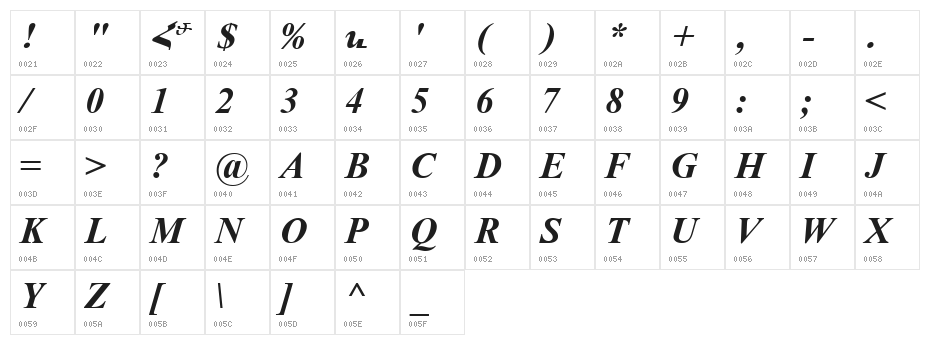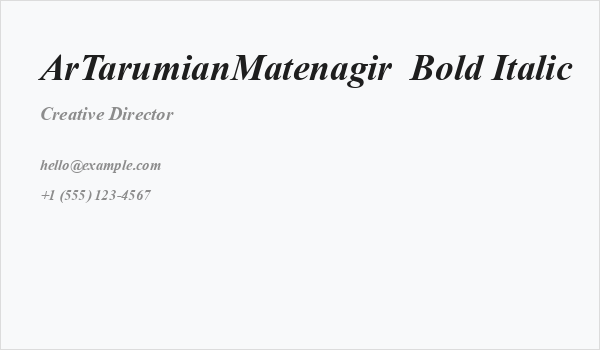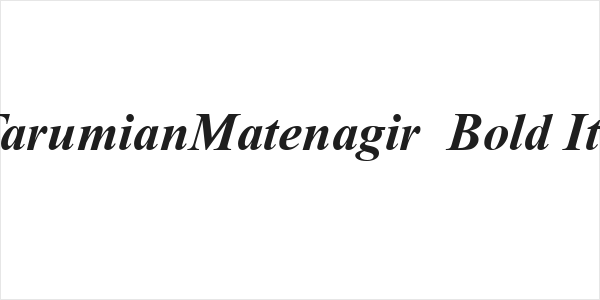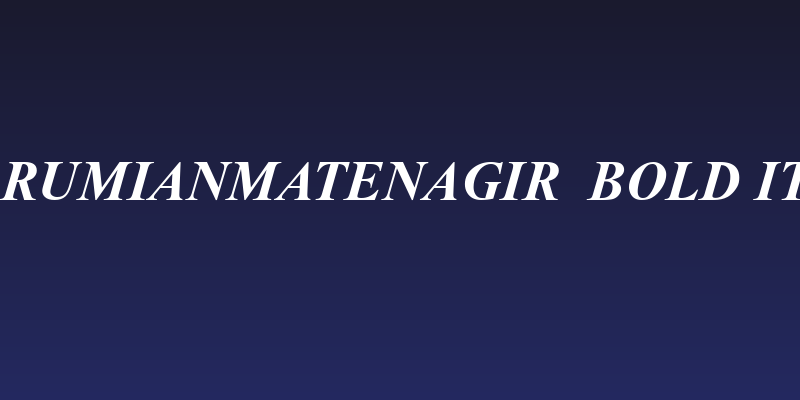
ArTarumianMatenagir Bold Italic Font
ArTarumianMatenagir Bold Italic Description
This font exhibits a bold and italicized style, characterized by its elegant and flowing serifs. The letters have a classic and sophisticated appearance, with a slight slant that adds a dynamic feel. The uppercase characters are well-proportioned, while the lowercase letters maintain a consistent and harmonious design. The numerals are clear and distinct, complementing the overall aesthetic. Special characters are thoughtfully integrated, enhancing the font's versatility. The bold weight ensures strong visibility, making it suitable for impactful designs.
Overall StyleClassic
Use CaseHeadlines, Logos, Editorial design
Proposed ProjectsIdeal for use in formal invitations, branding projects, editorial designs, and luxury product packaging.